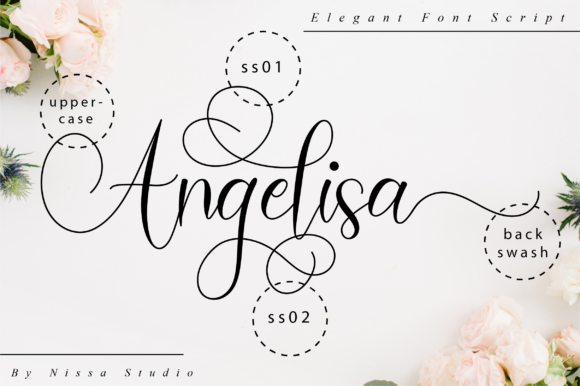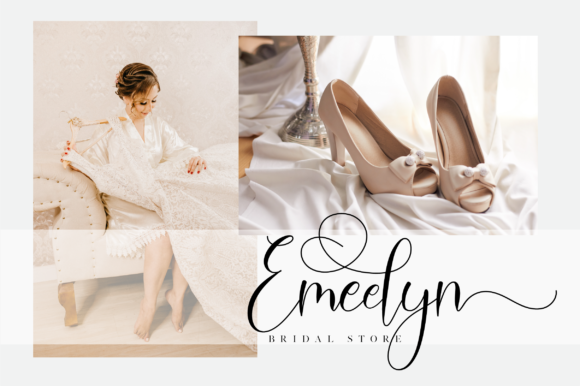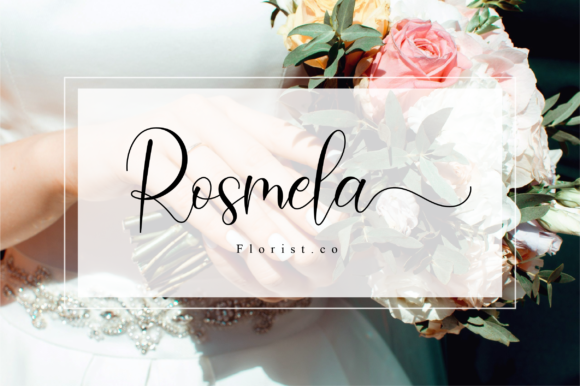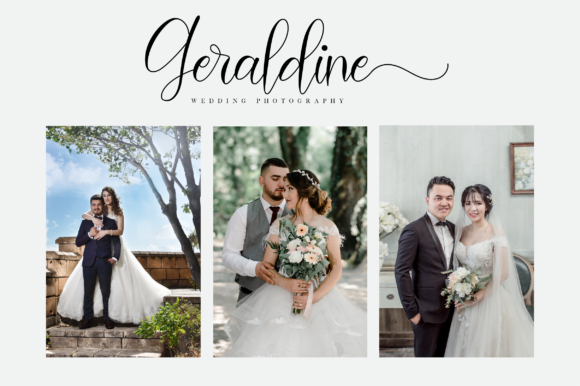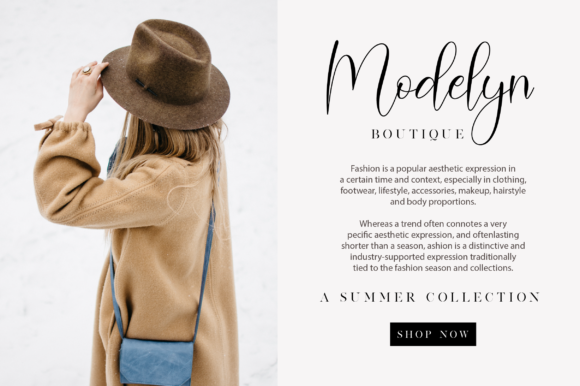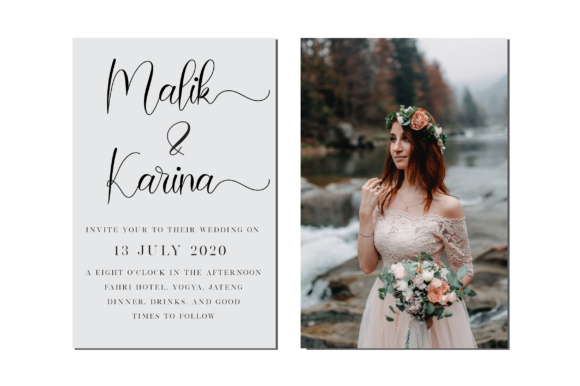
The Amadea Font: A Playful and Cute Calligraphy Delight
I’ll never forget the time I was working on a wedding invitation project, and my client asked for a font that was both elegant and playful. I scoured the internet, trying out font after font, but nothing seemed to fit the bill. That was until I stumbled upon the Amadea font. With its dynamically rounded characters and authentic feel, I knew I had found the perfect fit. In this article, I’ll share my experience with the Amadea font, and show you how to make the most of its features.
A Personal Review: What I Love and What I Don’t
- ✨ The Amadea font is incredibly versatile, making it perfect for a wide range of projects, from wedding invitations to social media posts.
- ✅ The PUA encoded swashes are a game-changer, allowing you to add a decorative touch to your designs in seconds.
- ✅ The font is incredibly easy to read, even at small sizes, making it perfect for body text or captions.
- ✨ The Amadea font has a unique, handmade feel that adds a touch of personality to any design.
- ⚠️ One thing to note is that the Amadea font can be a bit overused, so be sure to balance it with some simpler fonts to avoid overwhelming your design.
- ⚠️ Some of the swashes can be a bit tricky to navigate, especially if you’re new to using OpenType features.
The Story Behind Amadea
The Amadea font was designed by a team of typographers who wanted to create a font that was both elegant and playful. Inspired by traditional calligraphy, they crafted a font that would be perfect for a wide range of creative projects. With its dynamically rounded characters and PUA encoded swashes, the Amadea font is sure to add a touch of personality to any design.
Q: What is the Amadea font best used for?
A: The Amadea font is best used for creative projects that require a playful and elegant touch, such as wedding invitations, greeting cards, and social media posts.
Q: Is the Amadea font easy to read?
A: Yes, the Amadea font is incredibly easy to read, even at small sizes, making it perfect for body text or captions.
Q: Can I use the Amadea font with OpenType features?
A: Yes, the Amadea font comes with PUA encoded swashes and stylistic alternates, making it easy to add a decorative touch to your designs.